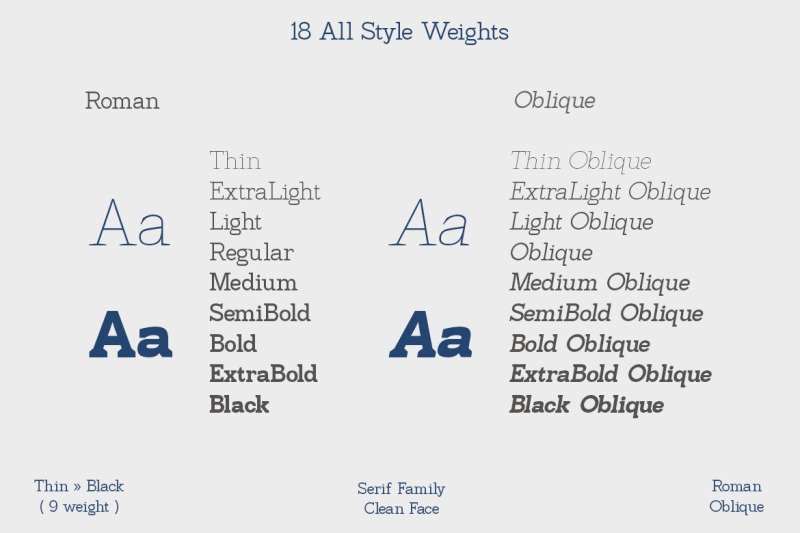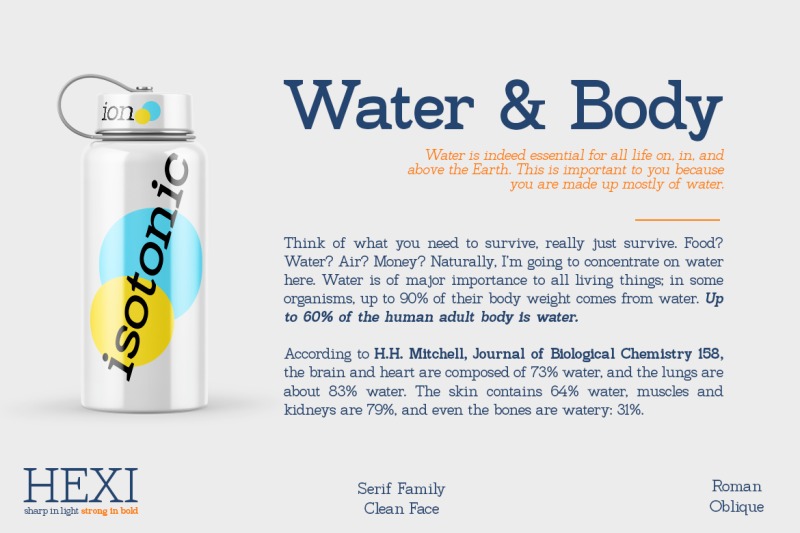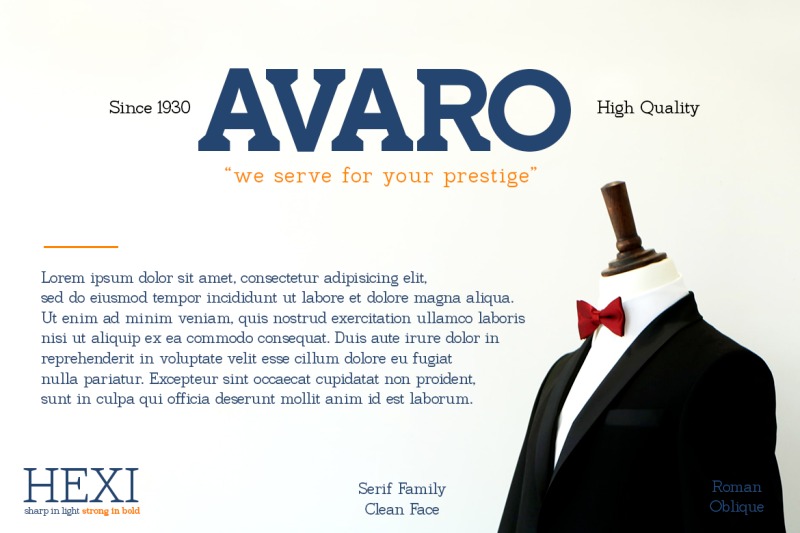
Hexi Serif Font
This is the perfect serif font family to create sleek and elegant logo designs and headlines. Made from font designer named zeenesia. It has 9 thicknesses (Thin to Black) 18 all style weights, to provide more support when designing. Minimized the nodes in each design to keep the glyphs bodies clean. Give the extrema point on each curve, it will make Hexi look smooth and neat.